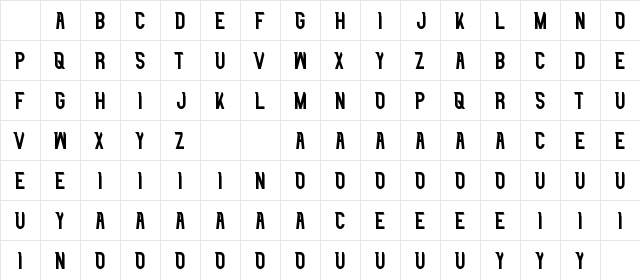
Complete Longless Demo Regular glyph index. Displaying only characters natively supported by Longless Demo Regular font.
Longless Demo is a composed and adaptable typeface that performs quietly and consistently across a wide range of design contexts.